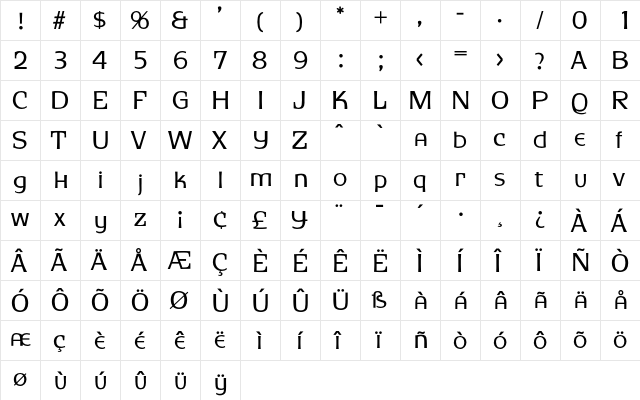
Albany Regular
Design Context for Albany Typeface
Albany takes a measured approach to typography — its balanced proportions and neutral character make it a reliable workhorse for both digital and print work.